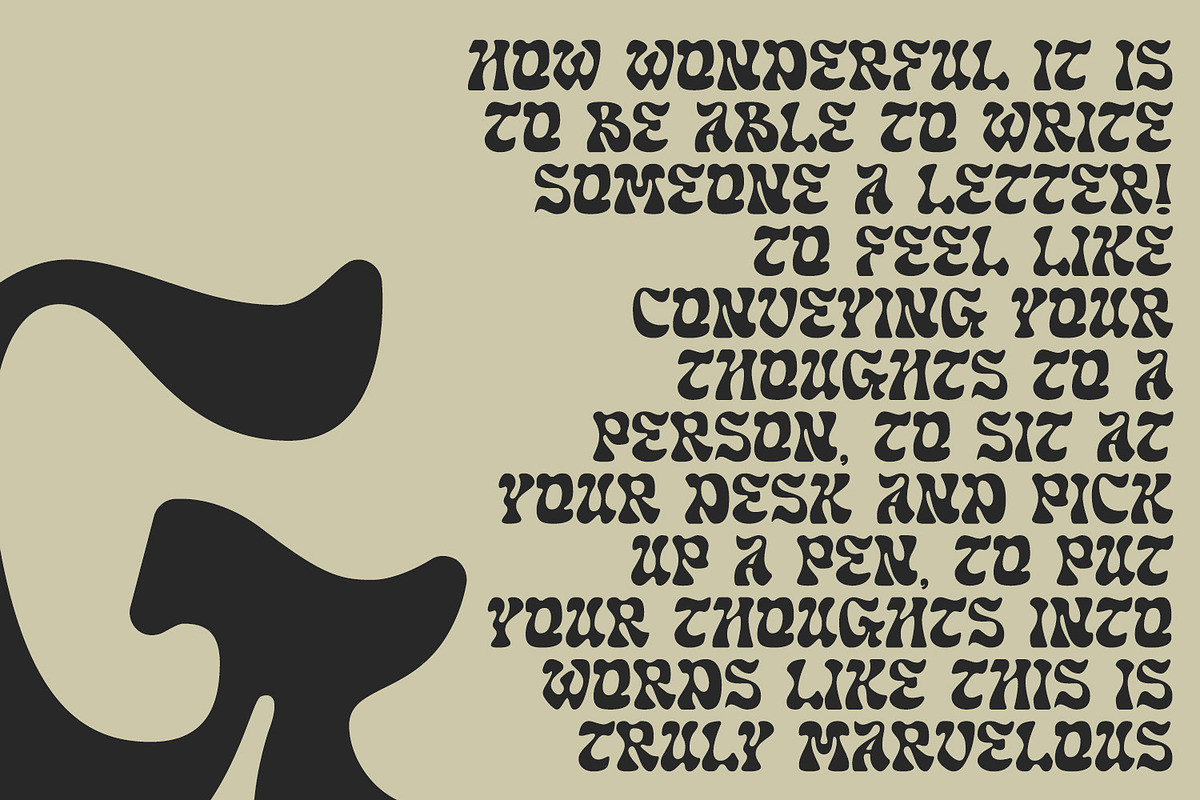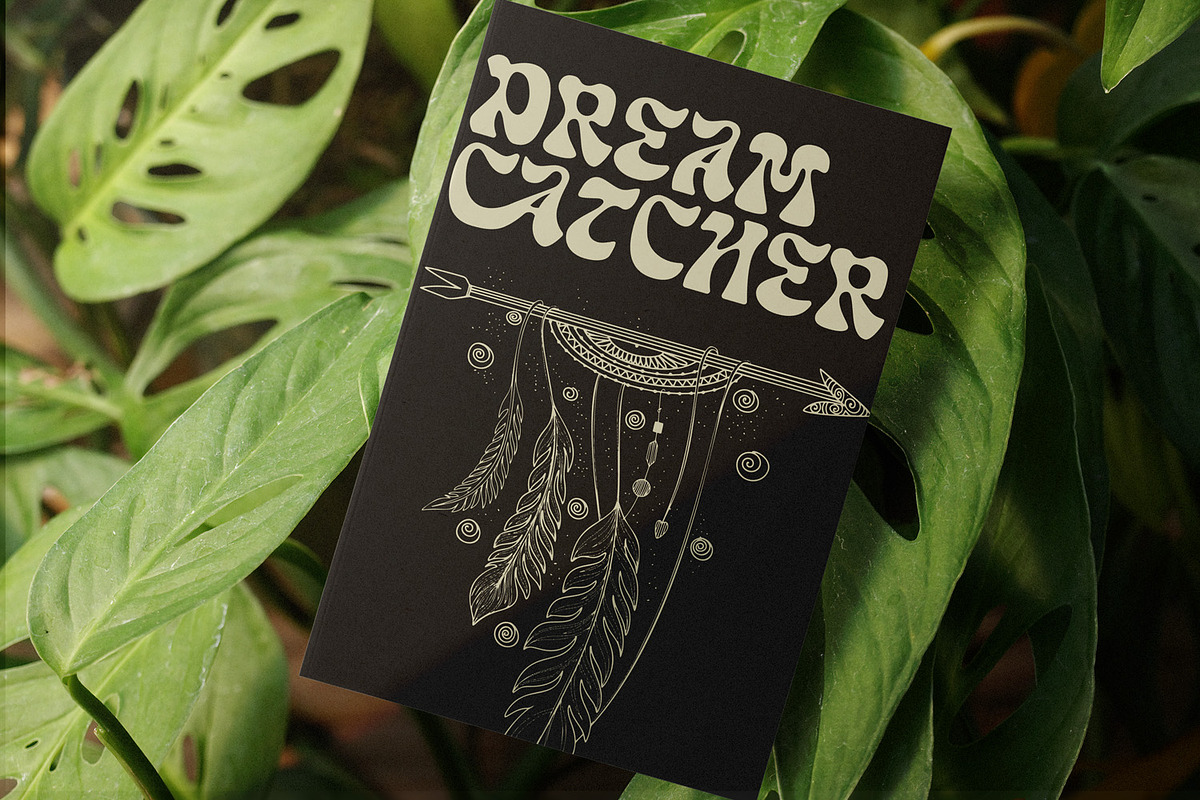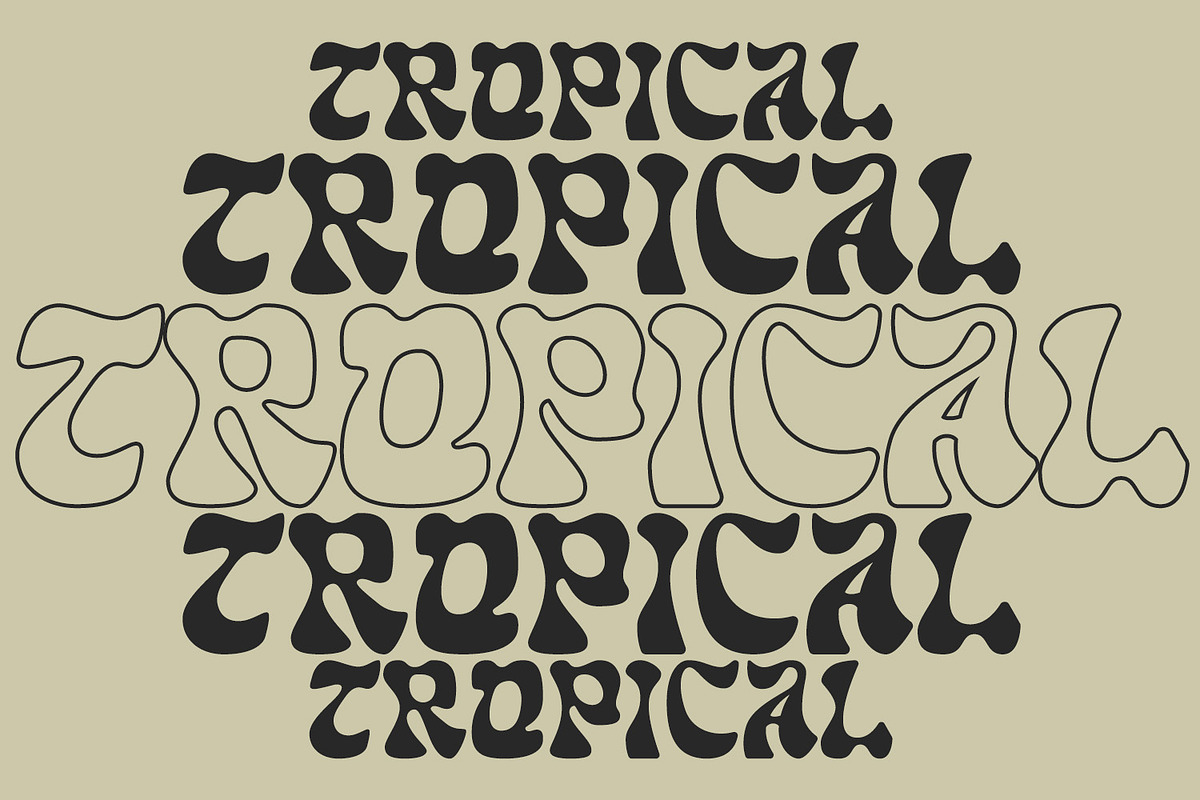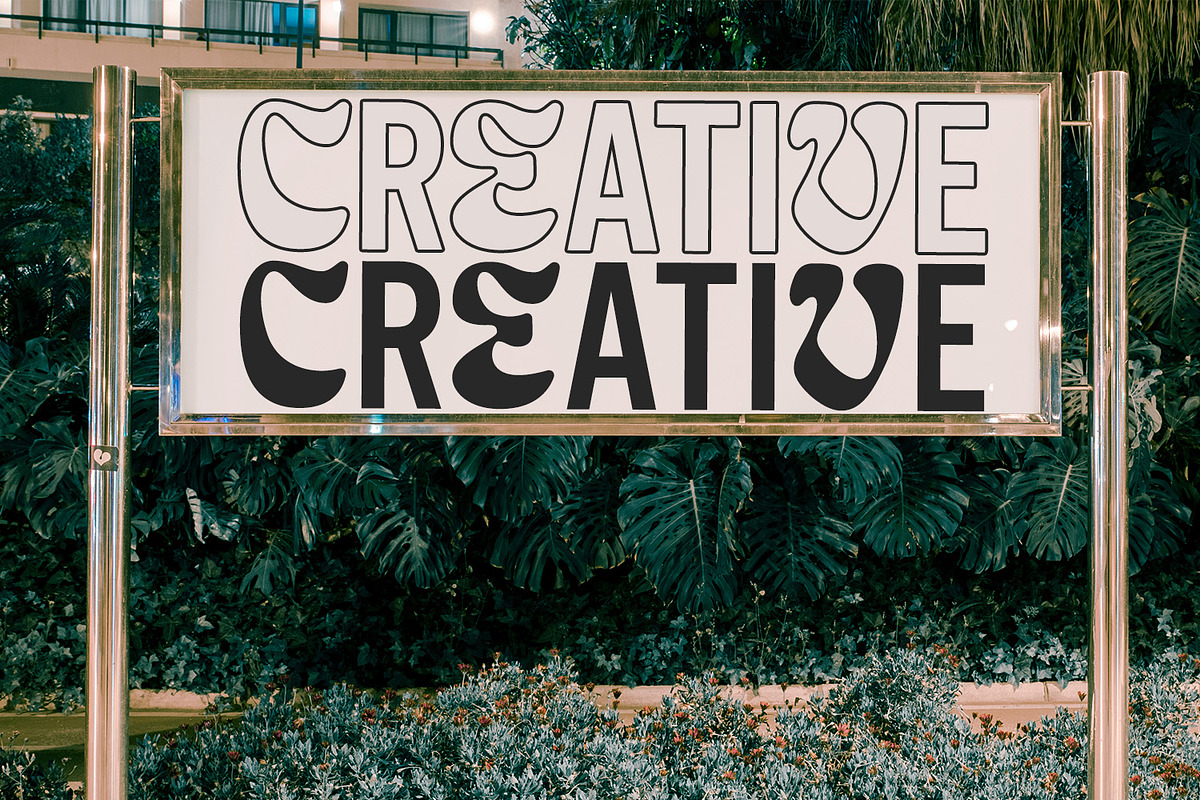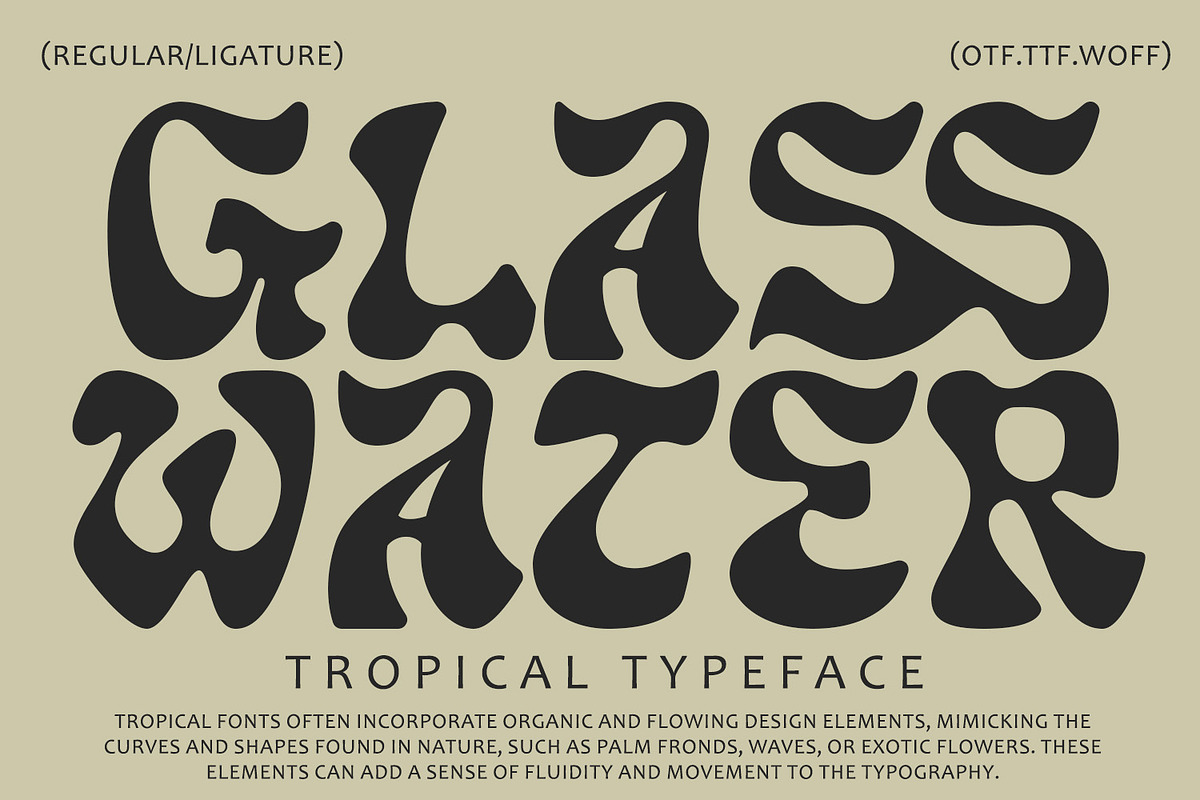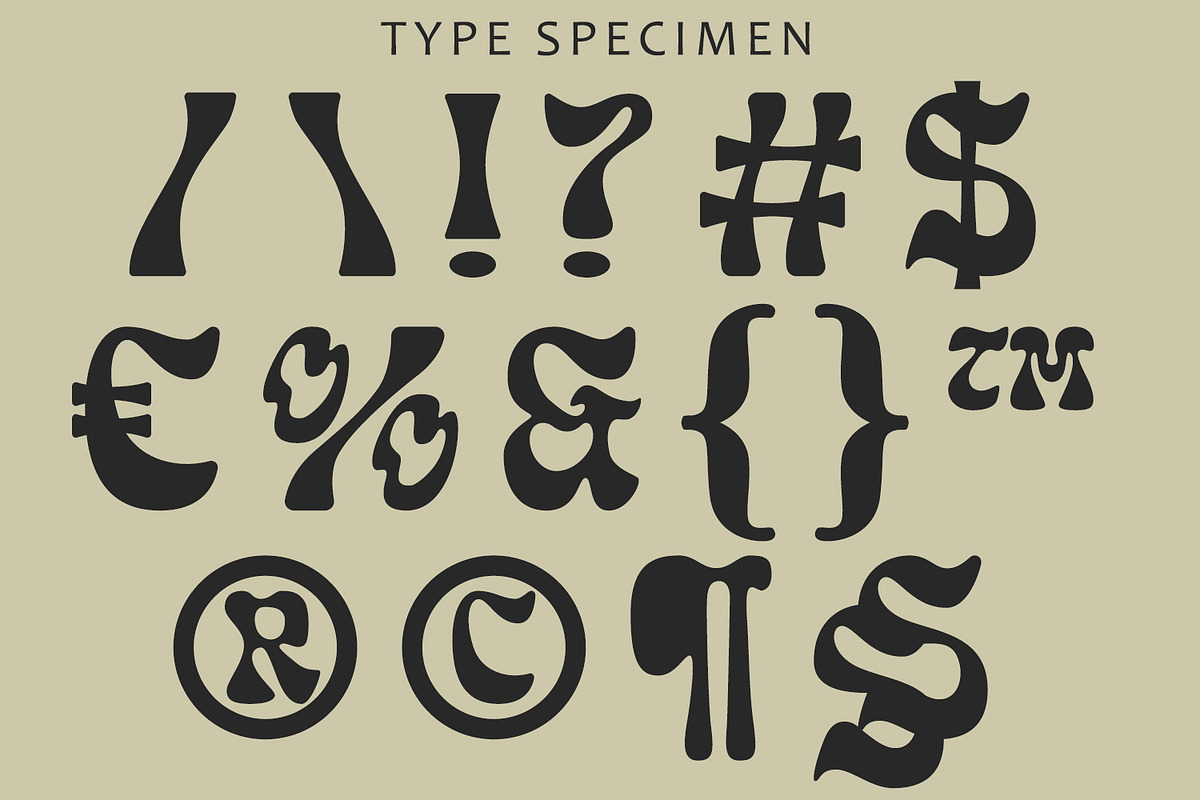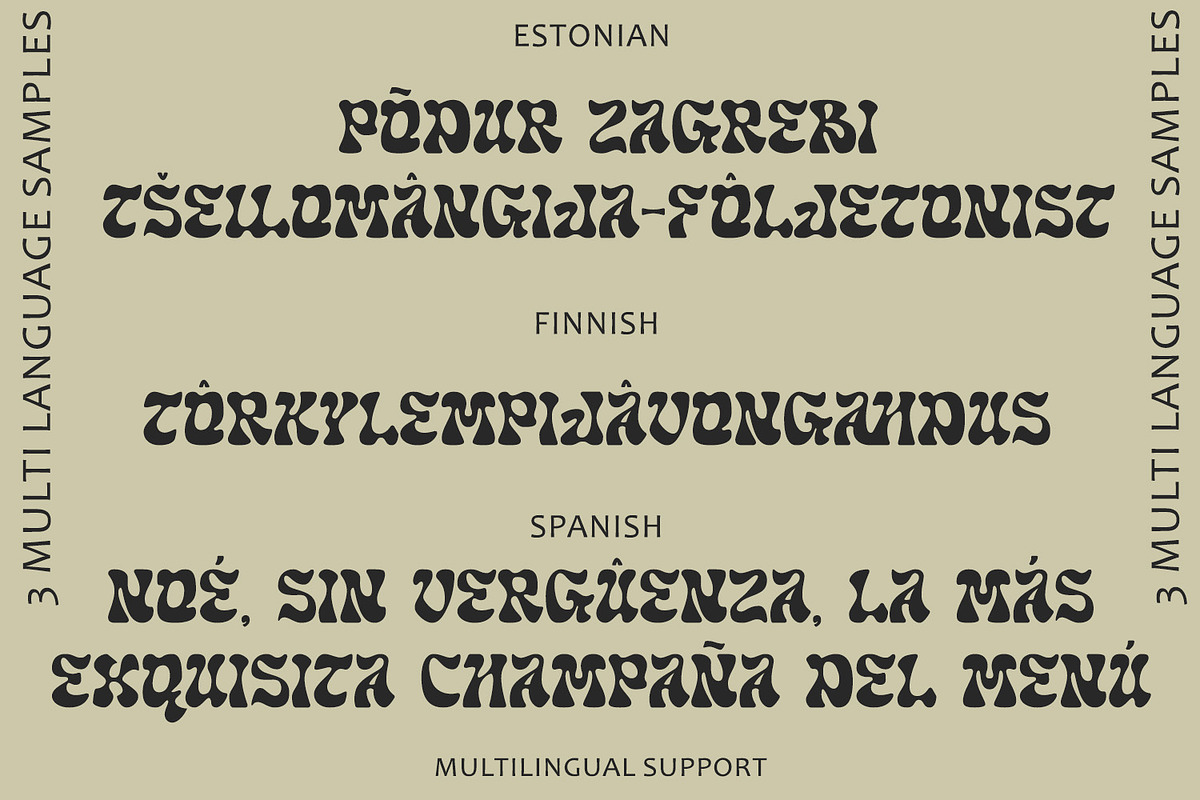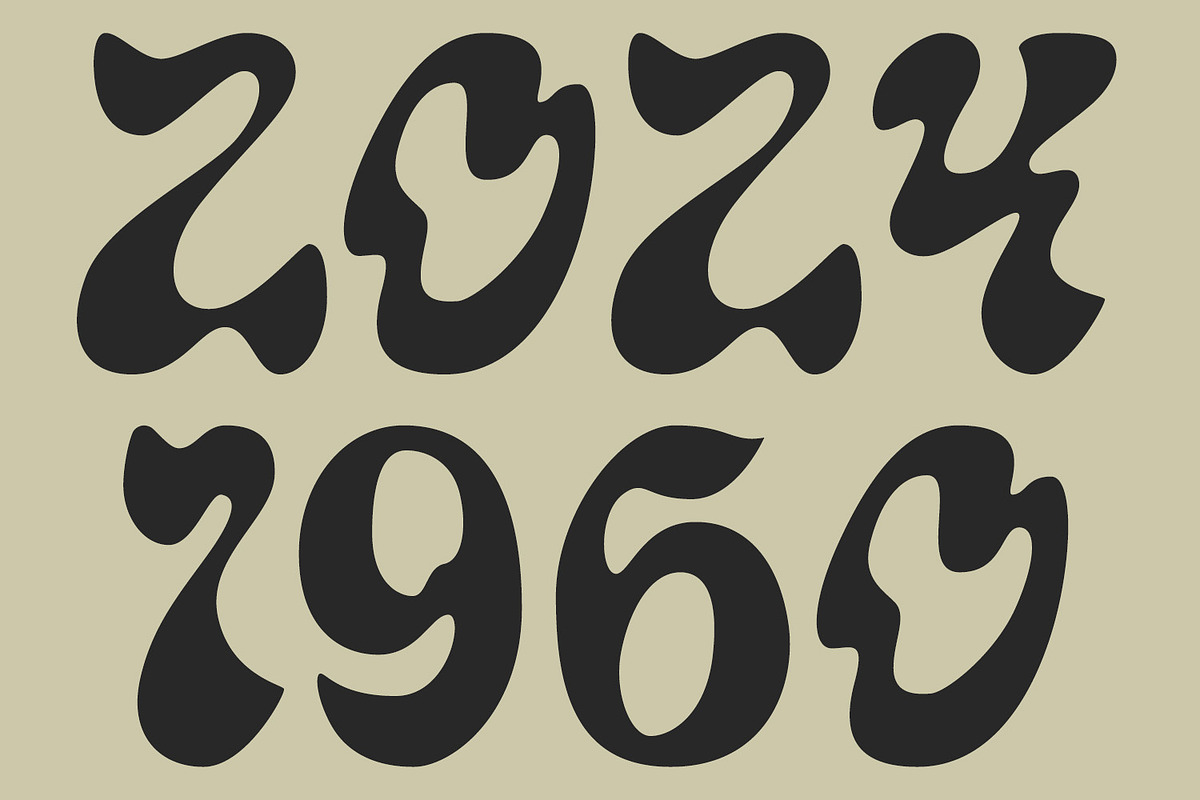
Glass Water - Tropical Font
Glass Water - Tropical fonts often incorporate organic and flowing design elements, mimicking the curves and shapes found in nature, such as palm fronds, waves, or exotic flowers. These elements can add a sense of fluidity and movement to the typography.
if you are looking for a font that embodies a tropical or exotic aesthetic, you may be interested in fonts that are inspired by or commonly associated with tropical themes. Such fonts often feature characteristics that evoke feelings of warmth, relaxation, and the natural beauty of tropical environments. Here's a general description of what you might expect from a font with a tropical theme:
Organic and Flowing: Tropical fonts often incorporate organic and flowing design elements, mimicking the curves and shapes found in nature, such as palm fronds, waves, or exotic flowers. These elements can add a sense of fluidity and movement to the typography.